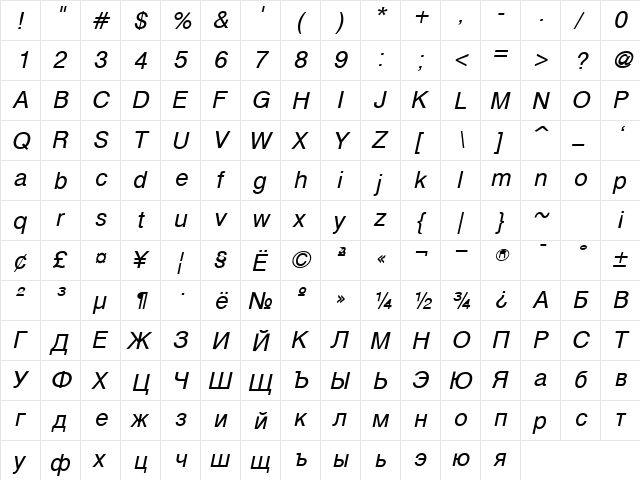
Cyrvetica Oblique
Design Context for Cyrvetica Typeface
Cyrvetica takes a measured approach to typography — its balanced proportions and neutral character make it a reliable workhorse for both digital and print work. Its italic angle brings a sense of urgency and motion to the letterforms.
Pro Tip: Use Cyrvetica for emphasis, pull quotes, and subheadings where its slanted energy can add rhythm to the layout.